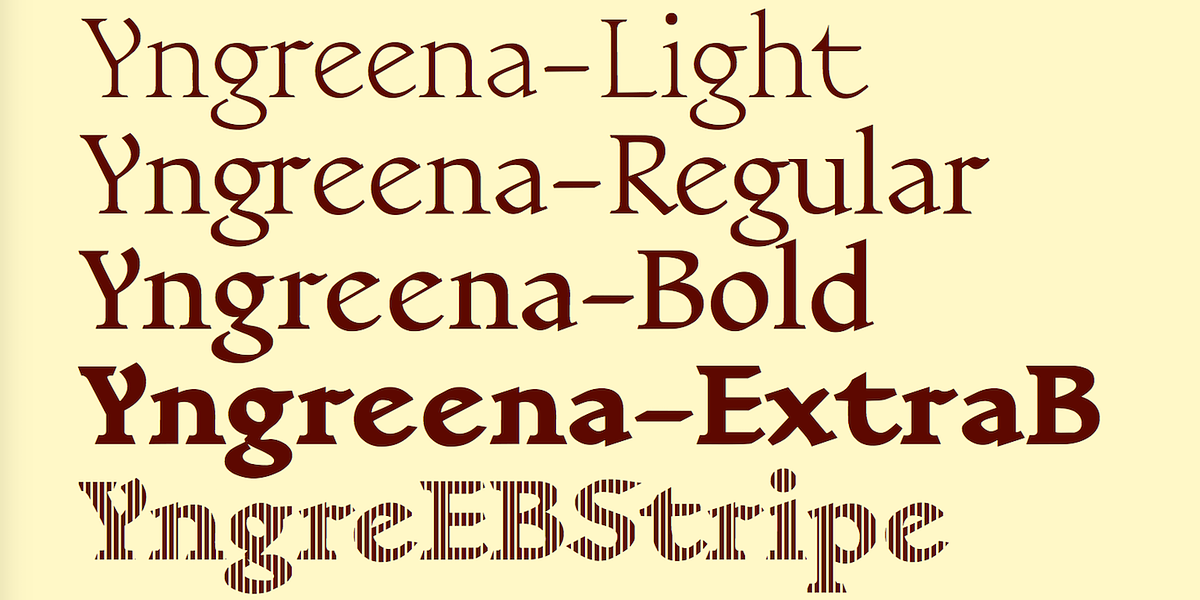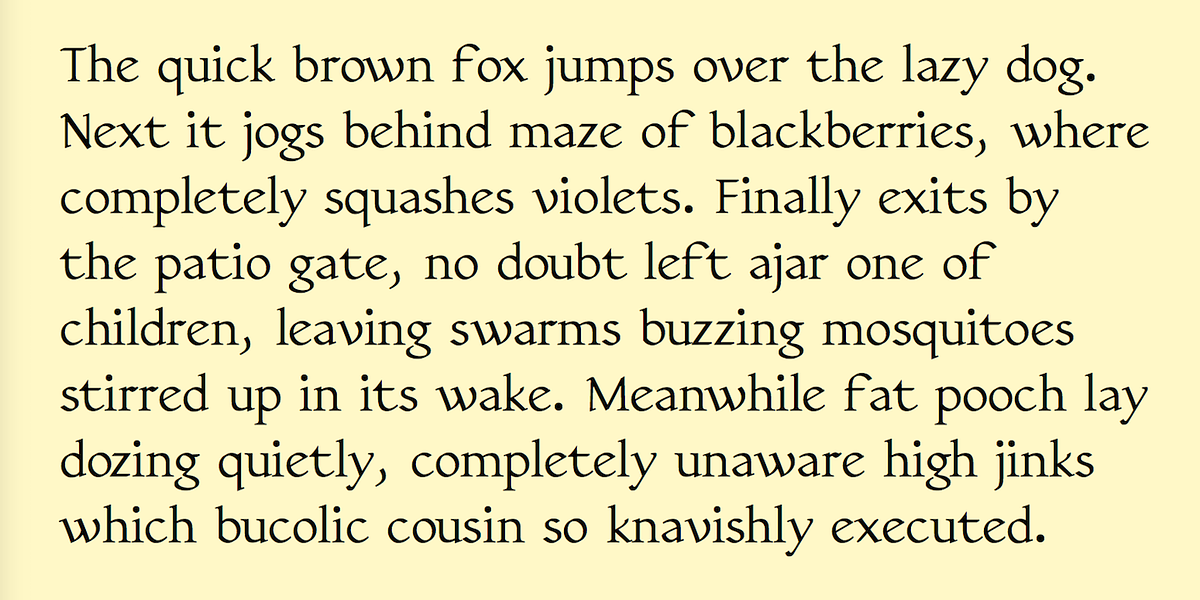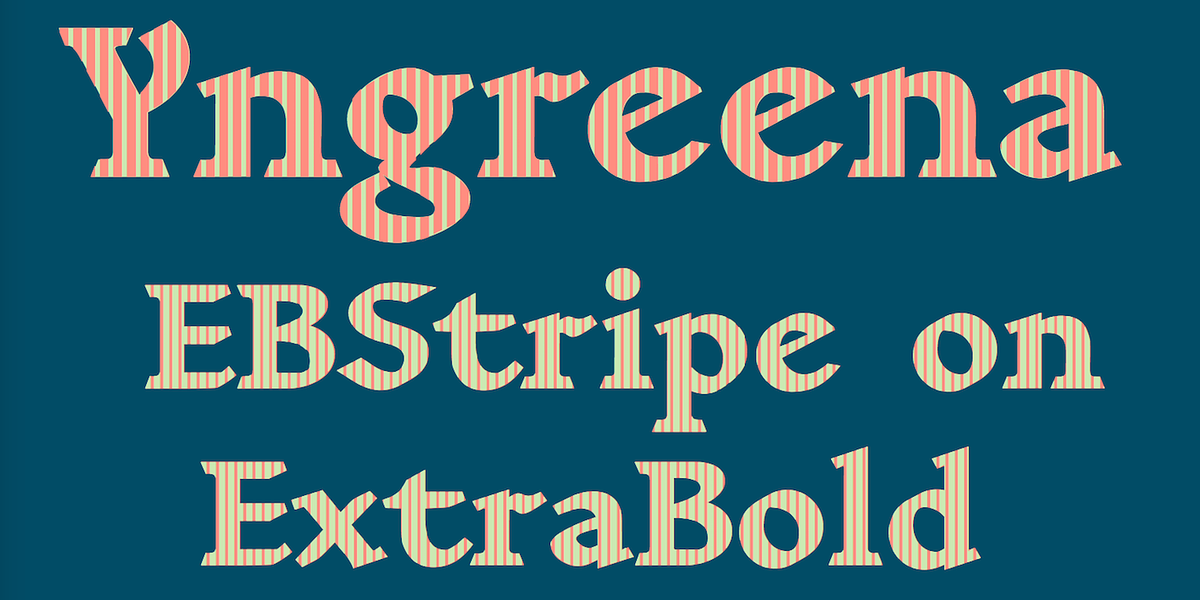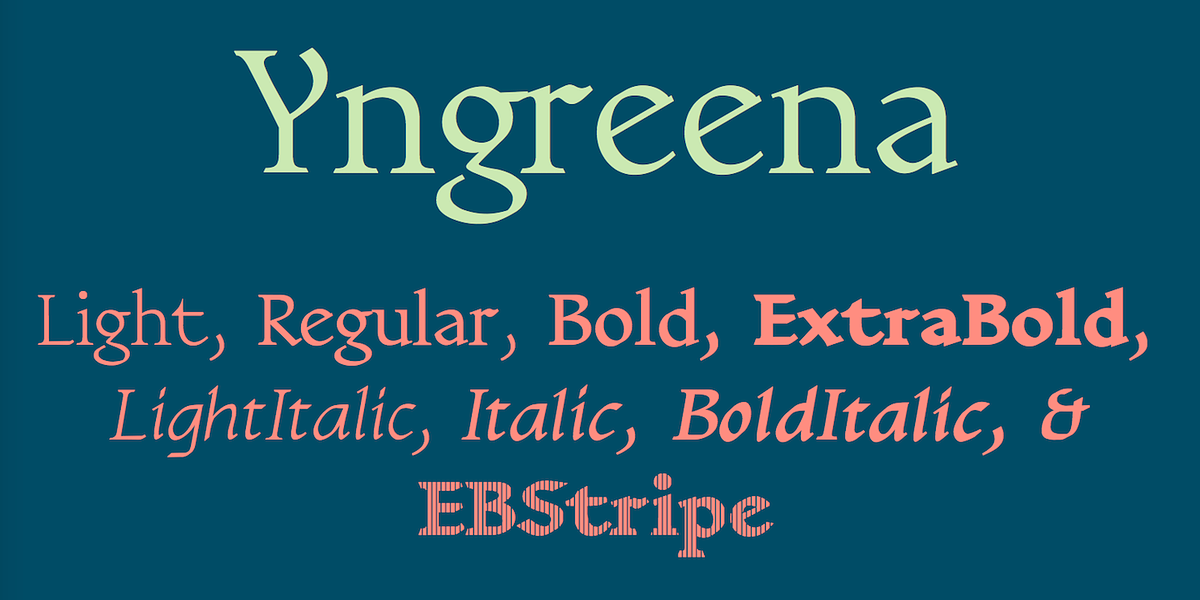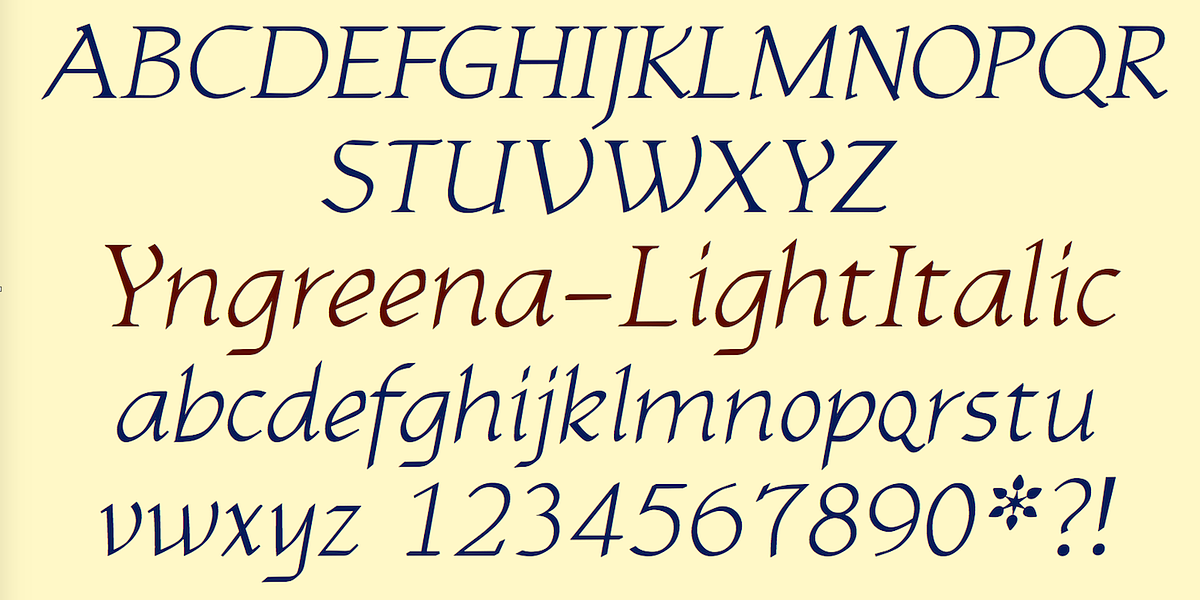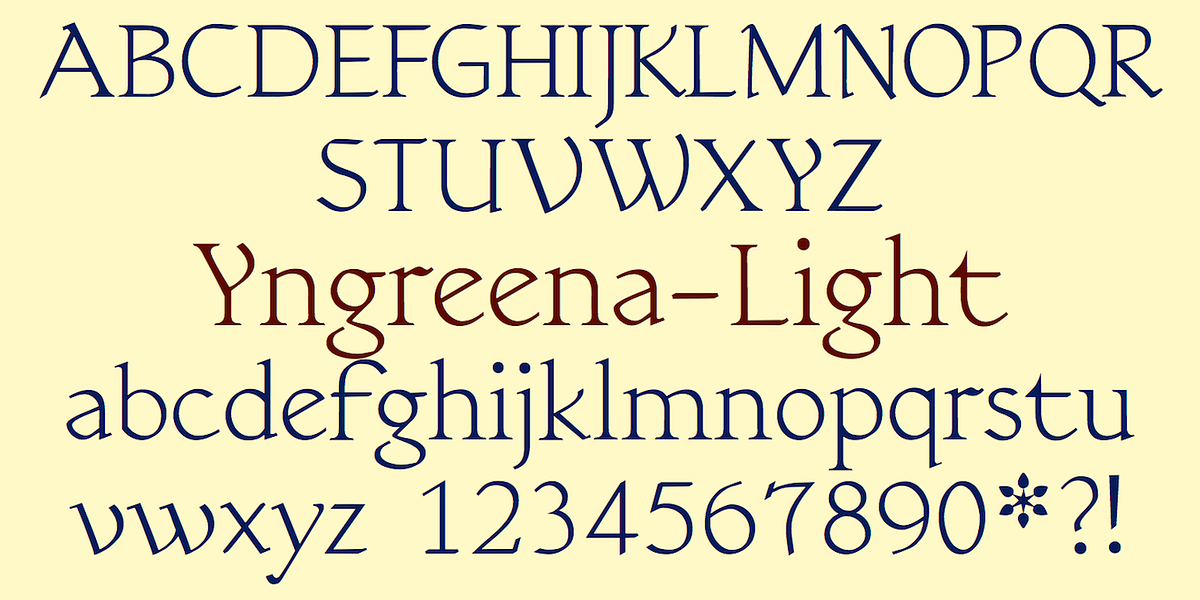
Yngreena
Yngreena is a serif typeface with calligraphic roots. It features a textured appearance and high contrast between thick and thin strokes. An alternative version, YngreenaAlt, offers tamer letterforms for improved readability in longer blocks of text.